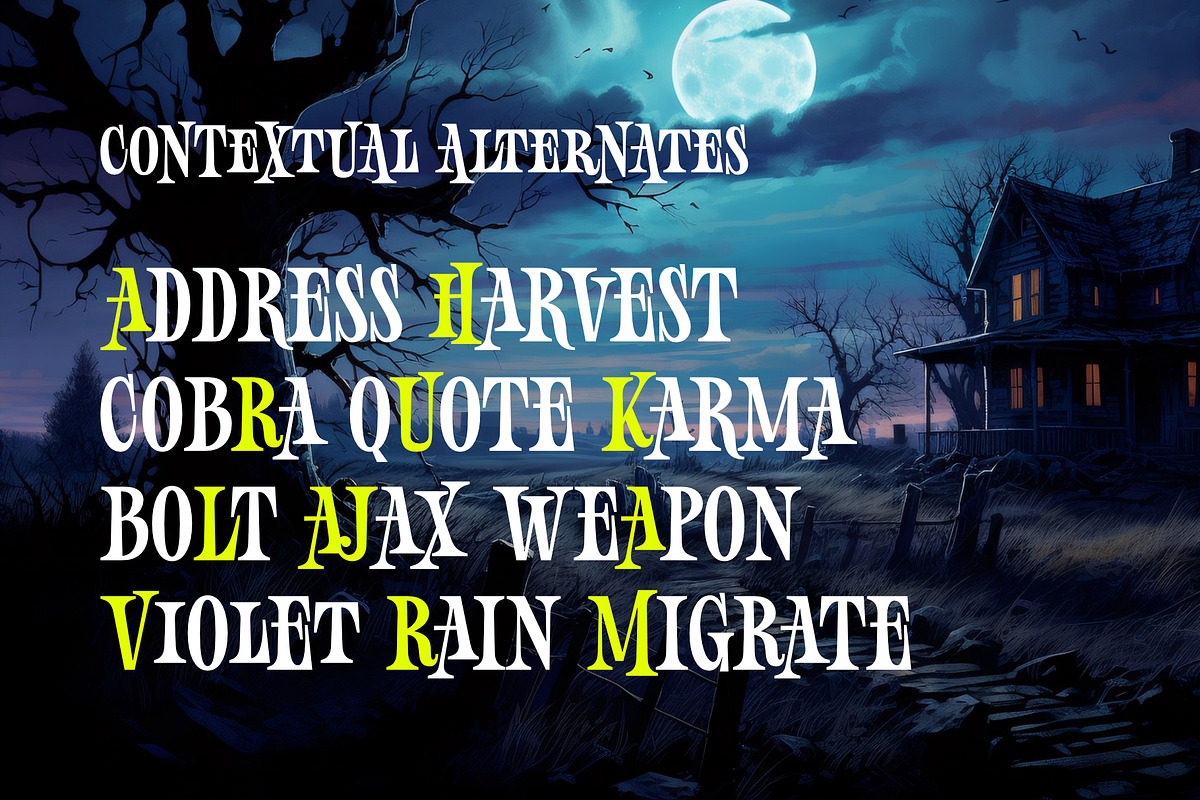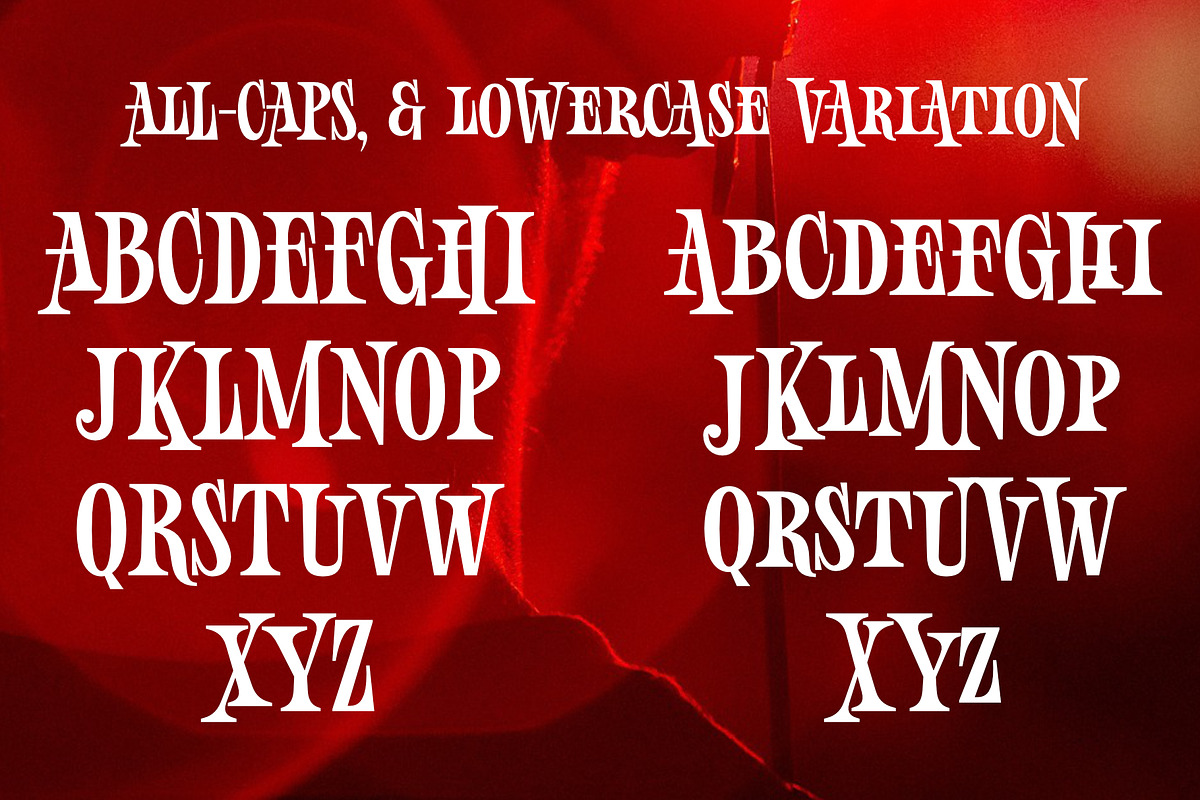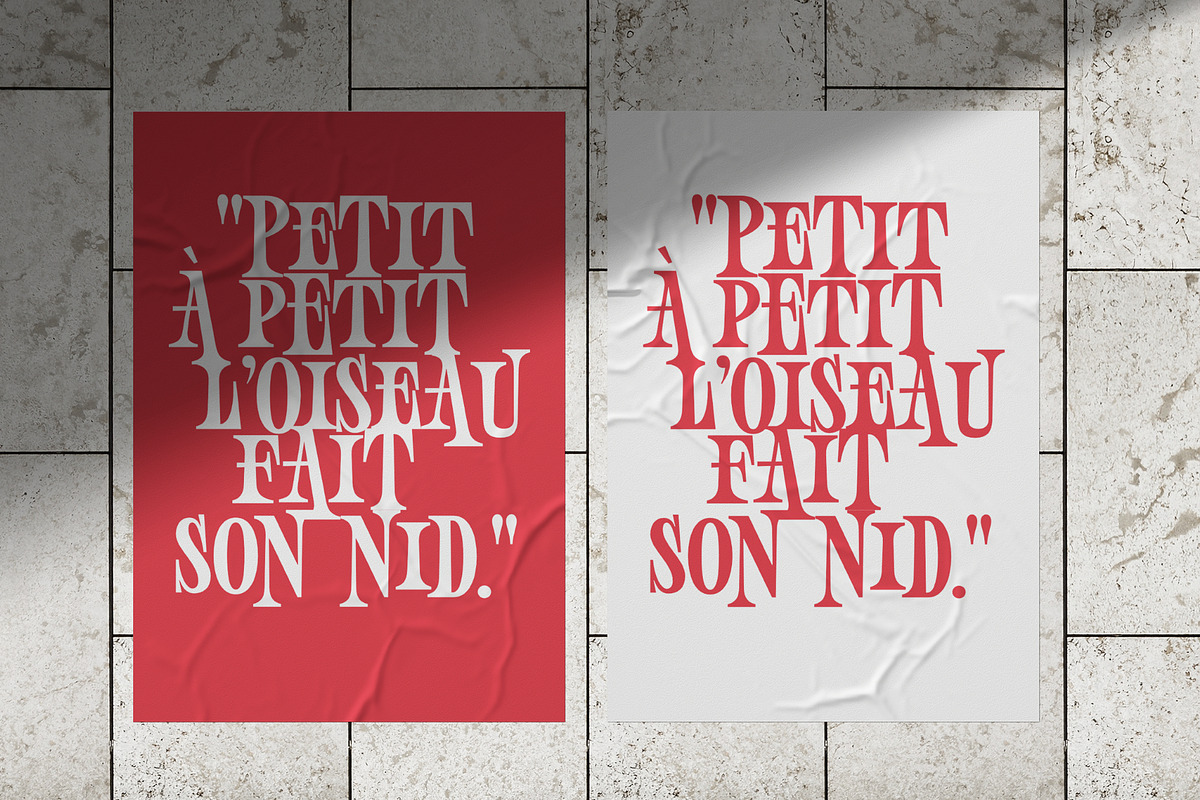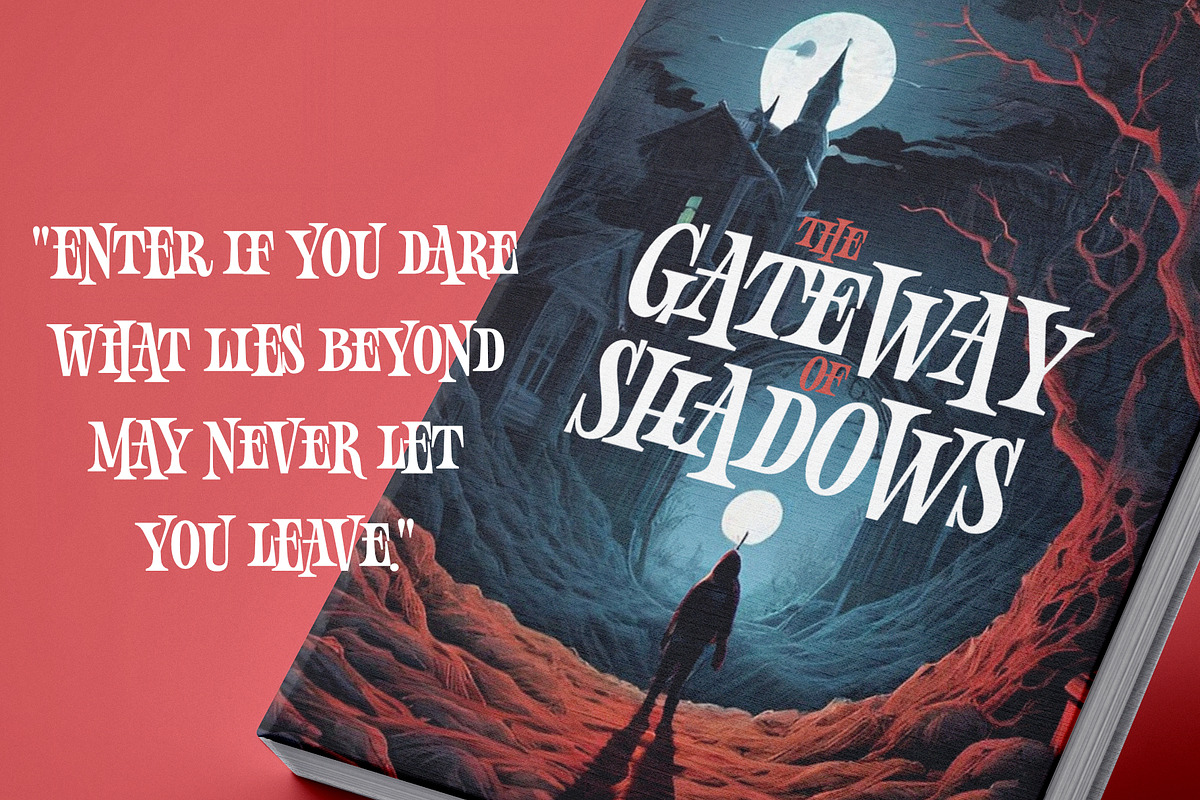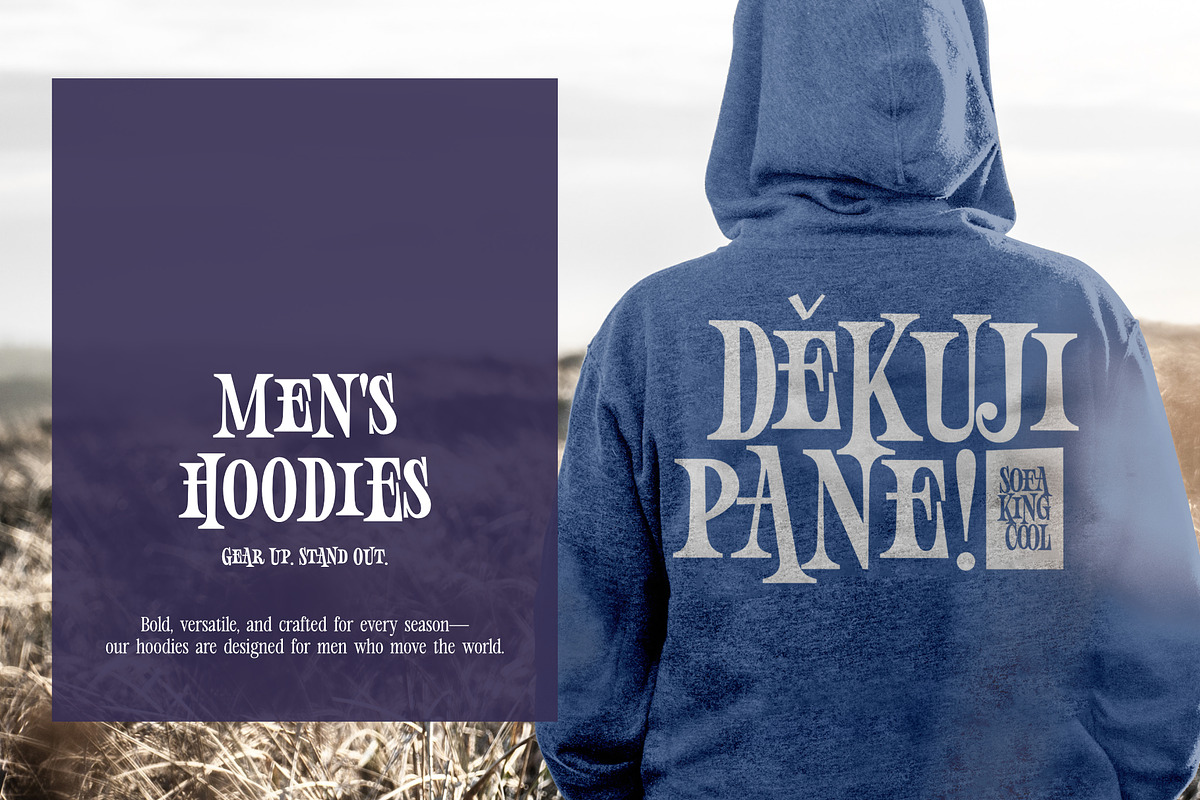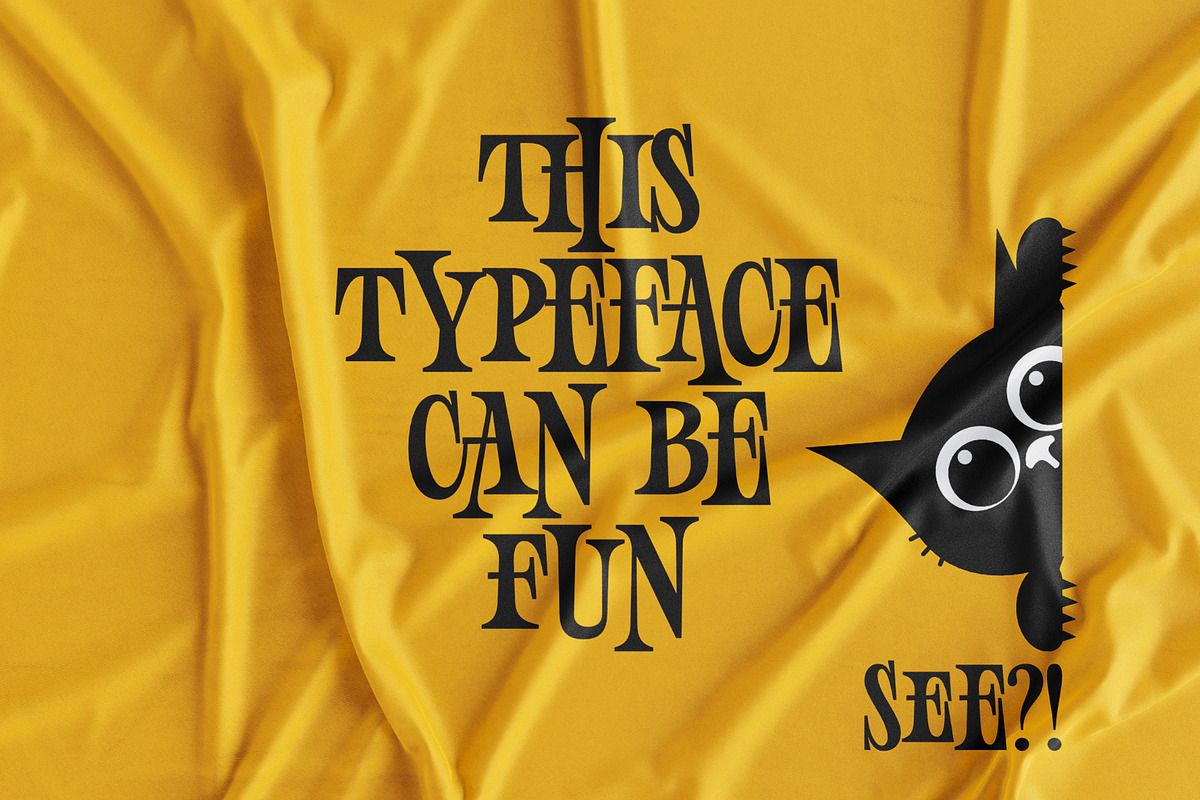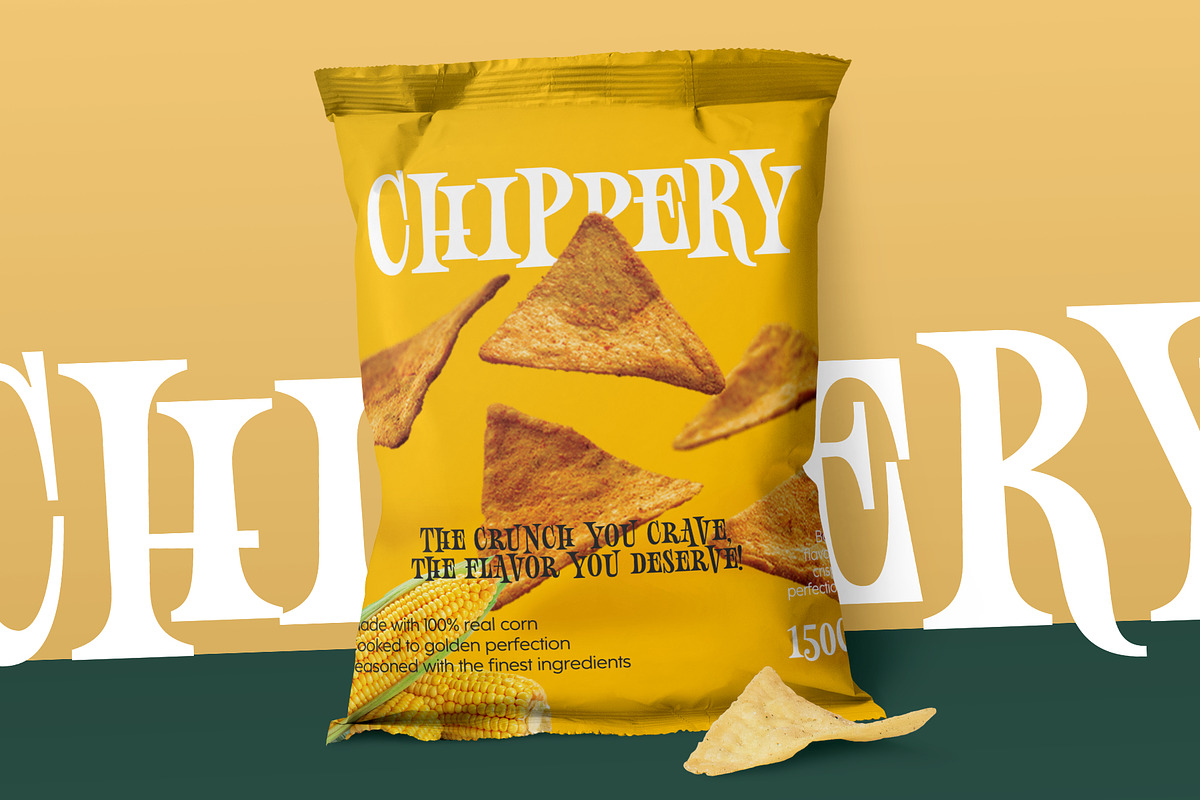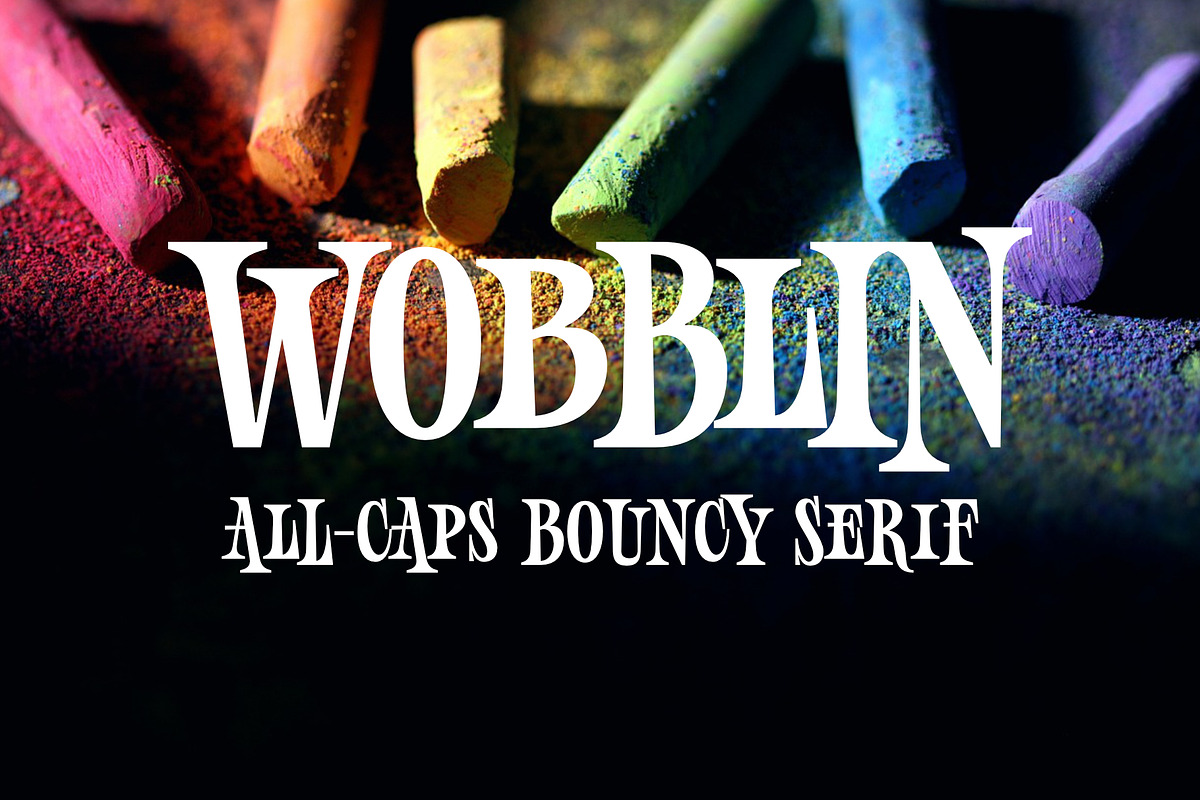
Wobblin
Wobblin is an all-caps, bouncy condensed serif font with a versatile lowercase variation. It carries a bold, slightly masculine energy, making a statement with its confident structure and quirky details. The irregular baseline adds a sense of playful movement, while the design leans slightly toward a subtle horror aesthetic. Its serifs are smooth and well-maintained, avoiding jagged edges while retaining their distinct shape for a polished yet dynamic look. Wobblin is perfect for designs that balance strength and charm, whether for bold branding, playful packaging, or unique editorial projects with a touch of intrigue.